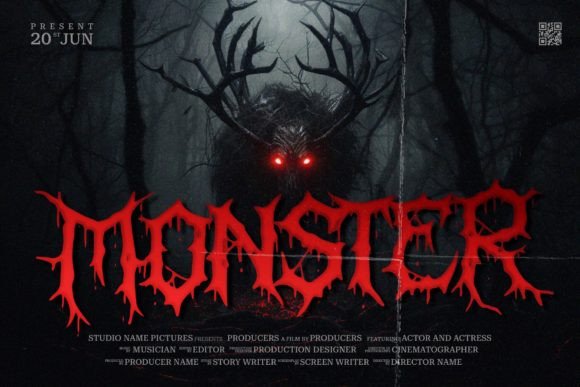
Kerak Neraka Font: Unleashing the Power of Black Metal Typography
Are you looking for a font that exudes power, intensity, and a touch of darkness? Look no further than the Kerak Neraka Font, a black metal font that is perfect for a wide range of projects. In this article, we’ll explore the world of Kerak Neraka, its features, and how it can elevate your designs to the next level.
What is Kerak Neraka Font?
Kerak Neraka Font is a black metal font that is inspired by the dark and aggressive world of heavy metal music. With its bold, sharp, and edgy design, this font is perfect for projects that require a strong and intense visual statement. The font features a unique and distinctive style that is sure to grab attention and leave a lasting impression.
Features of Kerak Neraka Font
So, what makes Kerak Neraka Font so special? Here are some of its key features:
- Bold and Edgy Design: Kerak Neraka Font features a bold and edgy design that is perfect for projects that require a strong visual statement.
- Unique and Distinctive Style: The font has a unique and distinctive style that sets it apart from other fonts.
- Highly Versatile: Kerak Neraka Font is highly versatile and can be used for a wide range of projects, from logos and branding to posters and packaging.
- Easily Readable: Despite its bold and edgy design, Kerak Neraka Font is easily readable, making it perfect for body text and headlines.
Uses of Kerak Neraka Font
So, what can you use Kerak Neraka Font for? The possibilities are endless! Here are some ideas to get you started:
- Logos and Branding: Kerak Neraka Font is perfect for logos and branding projects that require a strong and intense visual statement.
- Posters and Flyers: The font is great for posters and flyers that need to grab attention and convey a sense of urgency.
- Packaging Design: Kerak Neraka Font can add a touch of edginess and sophistication to packaging design.
- T-Shirts and Merchandise: The font is perfect for t-shirts and merchandise that require a bold and eye-catching design.
- Book Covers and Magazines: Kerak Neraka Font can add a touch of drama and intensity to book covers and magazines.
Benefits of Using Kerak Neraka Font
So, why should you use Kerak Neraka Font for your projects? Here are some benefits:
- Stand Out from the Crowd: Kerak Neraka Font is a unique and distinctive font that will help your projects stand out from the crowd.
- Convey a Sense of Intensity: The font is perfect for projects that require a sense of intensity and urgency.
- Highly Versatile: Kerak Neraka Font can be used for a wide range of projects, making it a great addition to your font library.
- Easily Readable: The font is easily readable, making it perfect for body text and headlines.
How to Use Kerak Neraka Font
Using Kerak Neraka Font is easy! Here are some tips:
- Choose the Right Size: Choose a size that is appropriate for your project. Kerak Neraka Font is perfect for headlines, titles, and body text.
- Experiment with Colors: The font looks great in bold and bright colors, but you can also experiment with different colors and gradients.
- Pair with Other Fonts: Kerak Neraka Font can be paired with other fonts to create a unique and interesting visual effect.
In conclusion, Kerak Neraka Font is a powerful and versatile black metal font that is perfect for a wide range of projects. With its bold and edgy design, unique and distinctive style, and highly readable text, this font is sure to elevate your designs to the next level. Whether you’re working on a logo, poster, packaging design, or t-shirt, Kerak Neraka Font is a great choice.
- What is Kerak Neraka Font? Kerak Neraka Font is a black metal font that is inspired by the dark and aggressive world of heavy metal music.
- What can I use Kerak Neraka Font for? Kerak Neraka Font can be used for a wide range of projects, including logos, branding, posters, packaging design, t-shirts, and more.
- Is Kerak Neraka Font easily readable? Yes, Kerak Neraka Font is easily readable, making it perfect for body text and headlines.